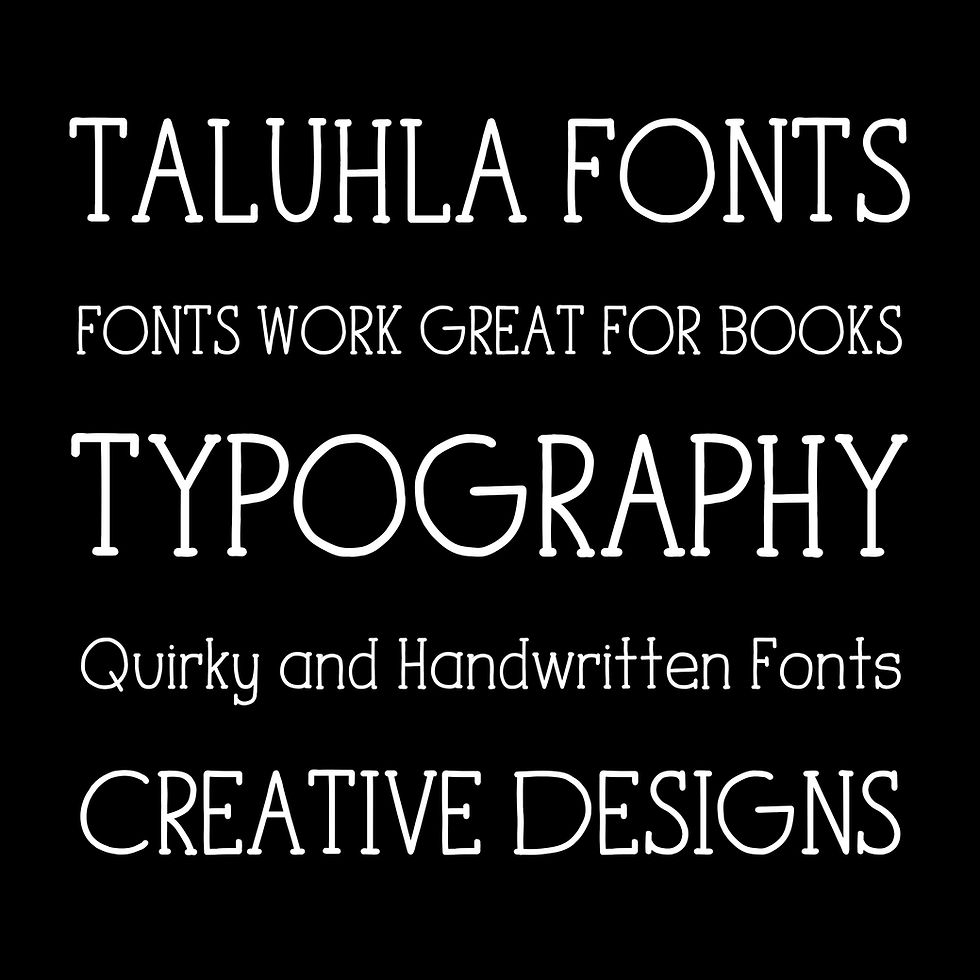
TALUHLA BOLD FONT is a lovely handwritten font with Latin Pro Characters.
Use Taluhla font for invitations, greeting cards, posters, advertising, film, weddings, books, menus and anytime you would like to express yourself kindly.
Taluhla Bold Font
• ALTERNATES:
• LIGATURES:
• NUMBERS, FRACTIONS:
• LATIN PRO /MULTILINGUAL